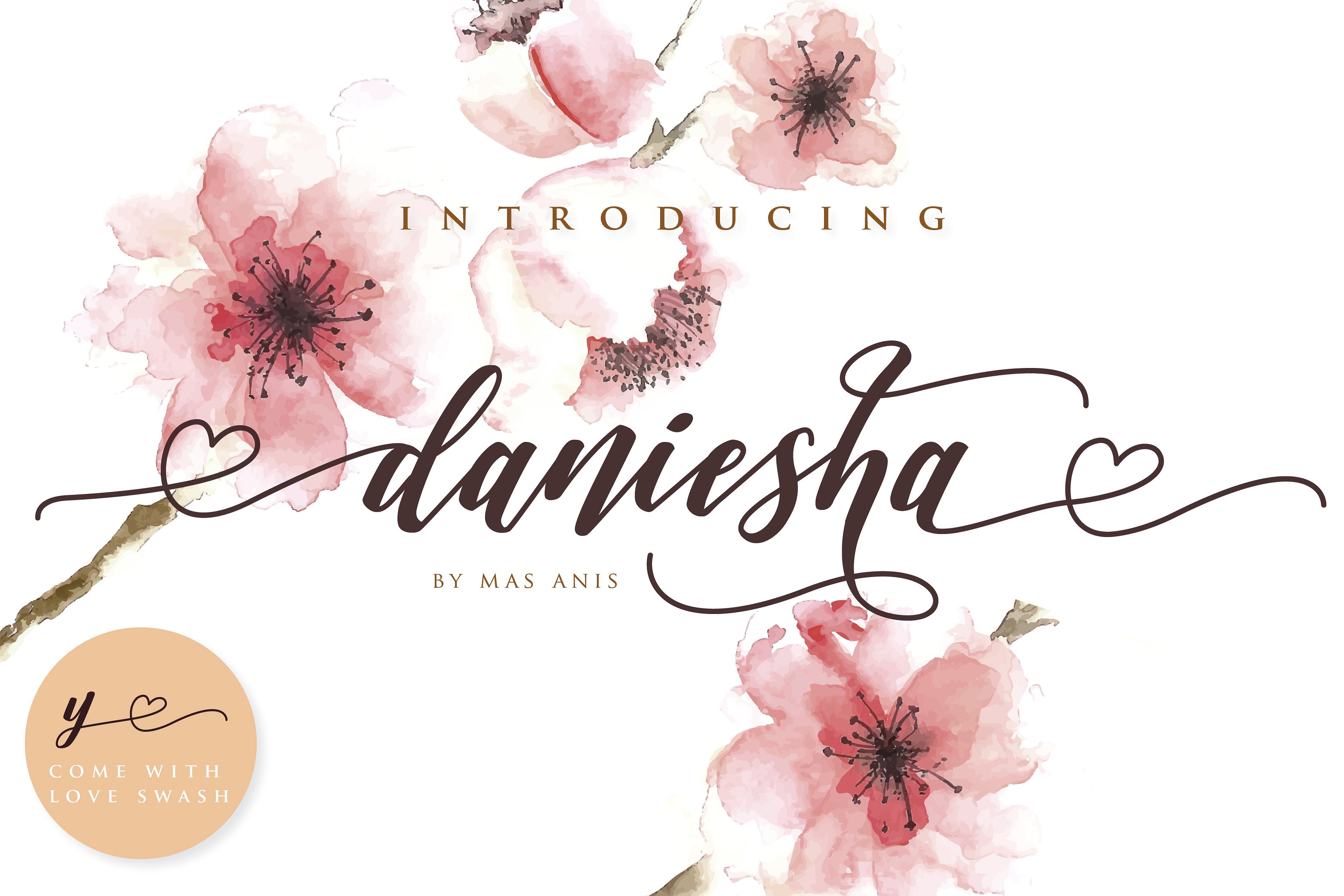
Daniesha
Daniesha Font Script
Daniesha is a new fresh, unique & modern script with a handmade calligraphy style and decorative characters, a unique blend of classic and modern fonts.
Daniesha Font is suitable for wedding, quote, greeting cards, bussiness card, event, invitation, escort card, table number, header menu, display, logo, blog slider, branding material, custom address, stamp, packing, posters, and more!